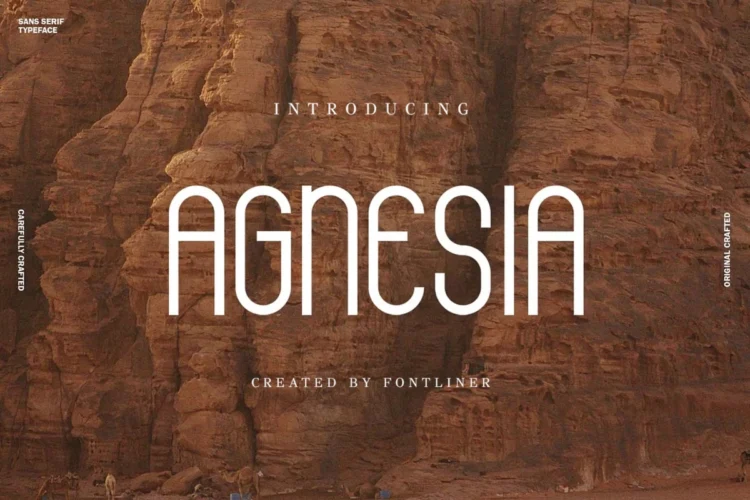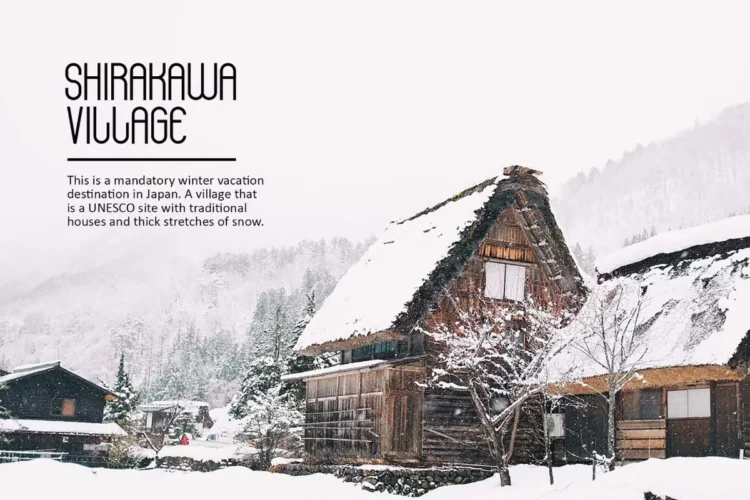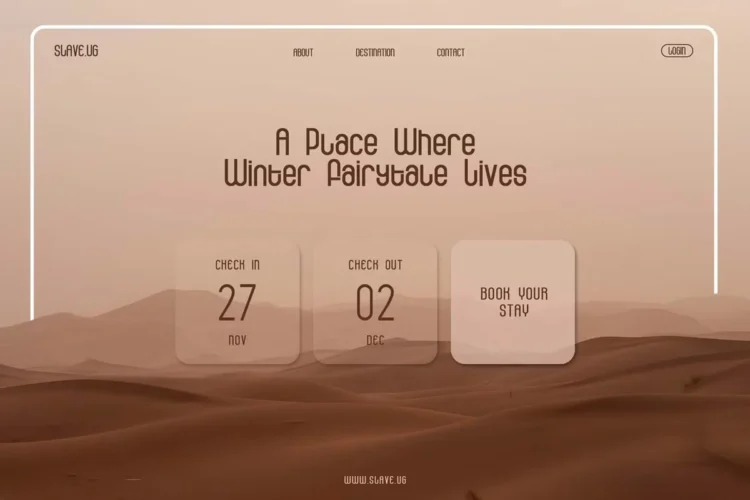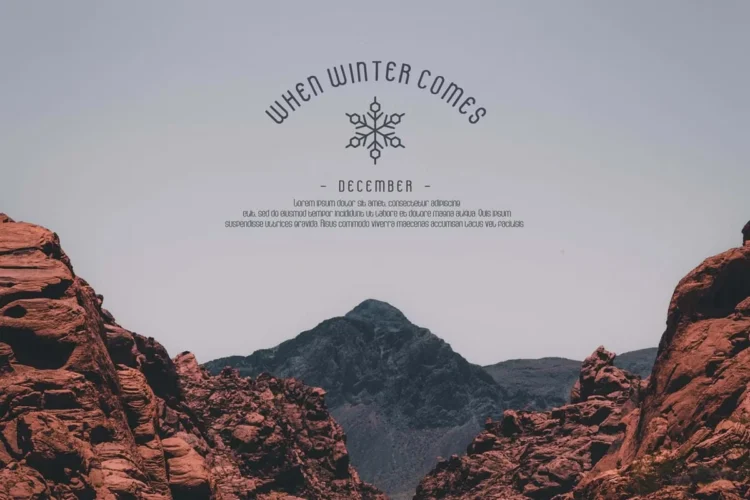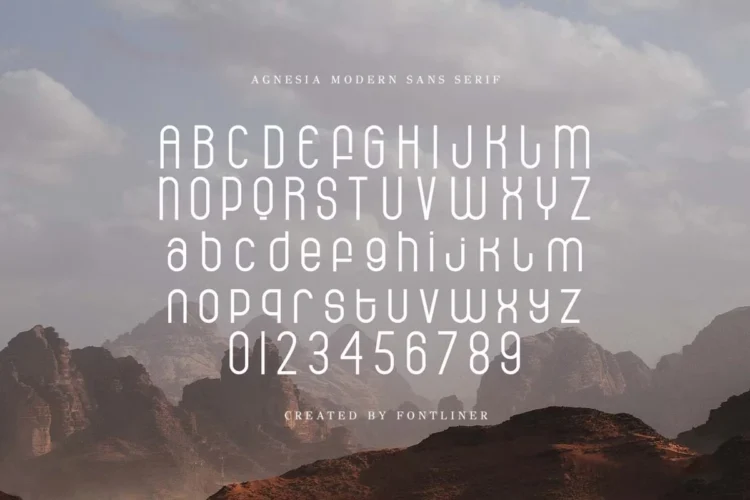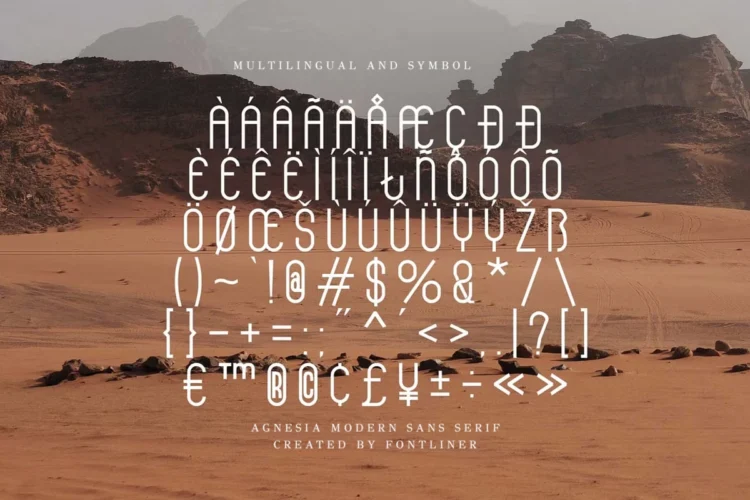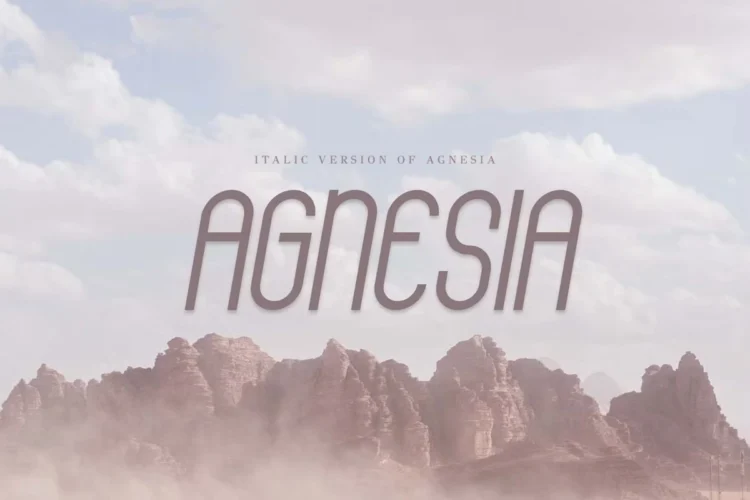
Agnesia
Agensia Italic
Agnesia is a Sans Serif Font. This fonts includes uppercase letters, numerals, a large range of punctuation. This font was created in a Retro style. Created for poster, web design, branding, illustrations, badges and some other works.